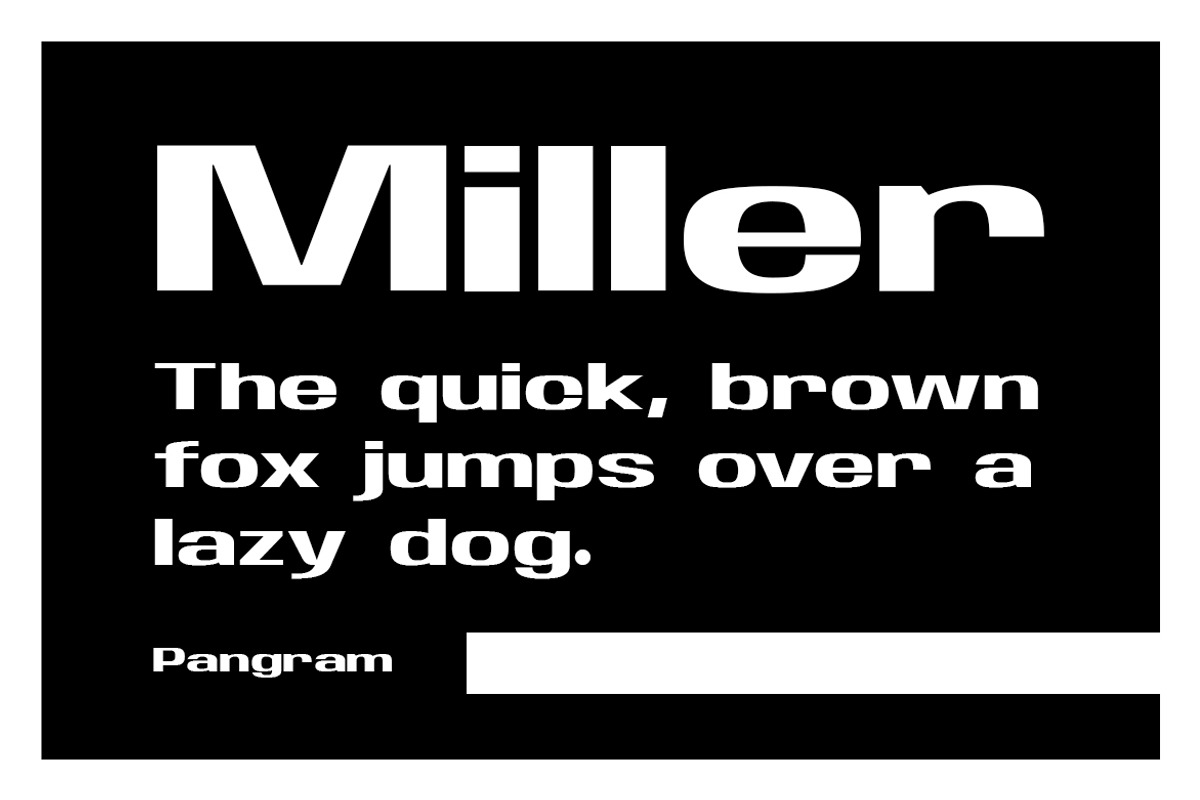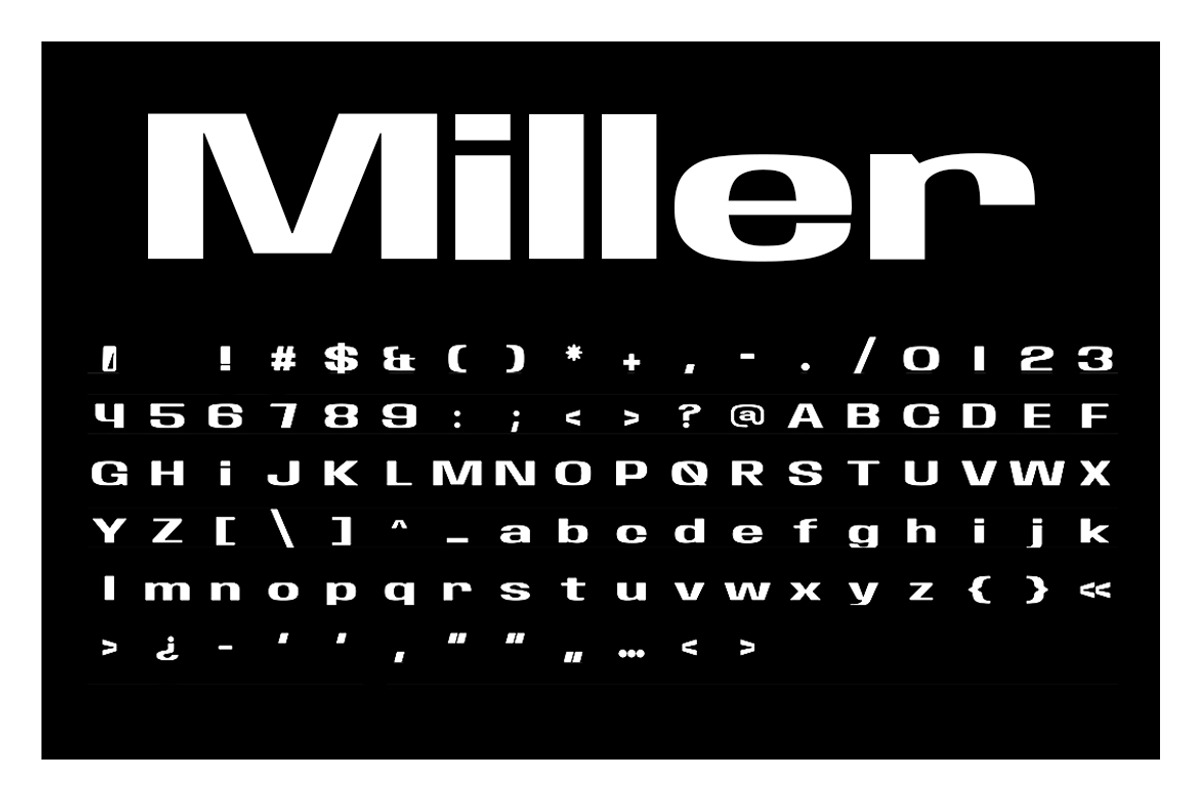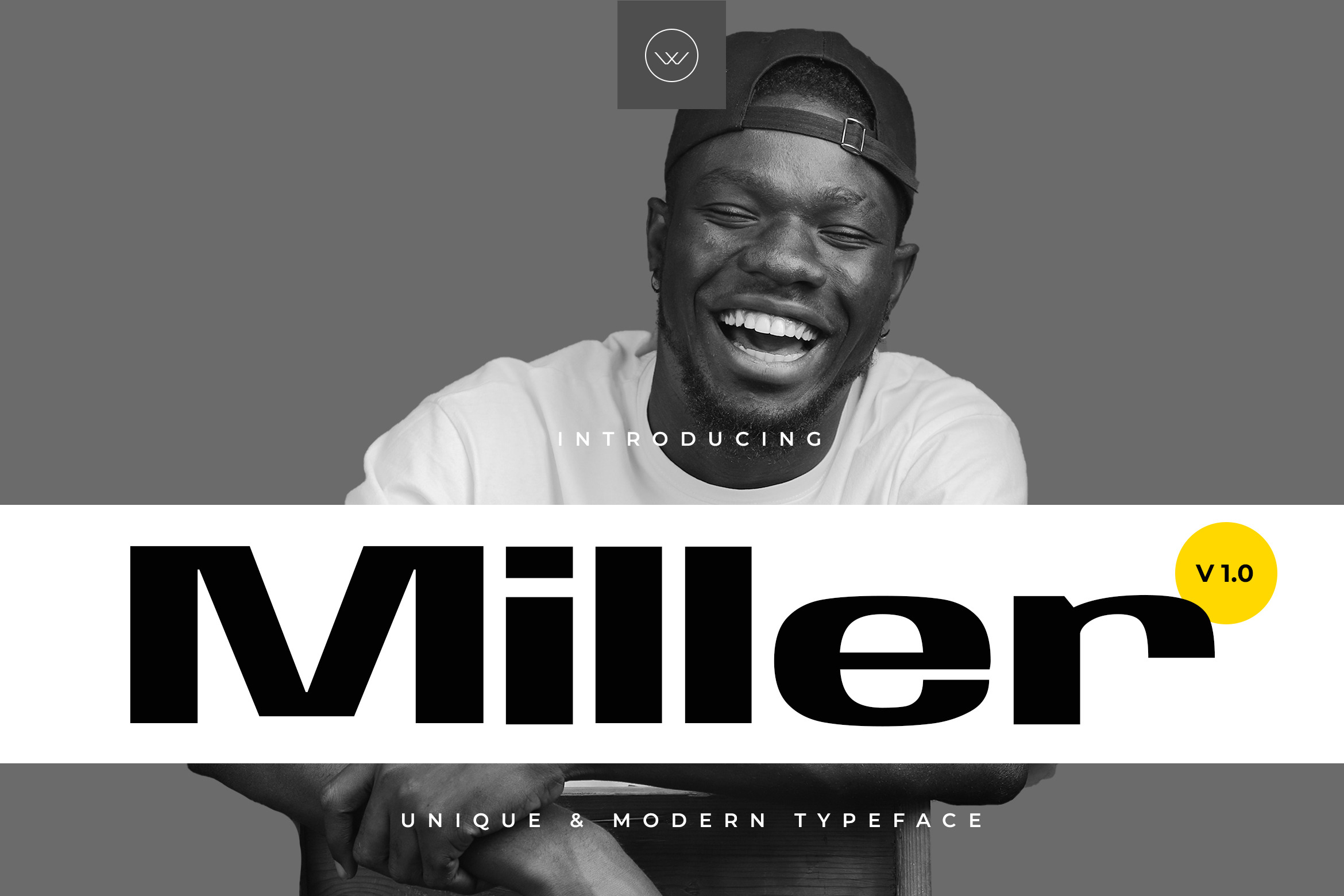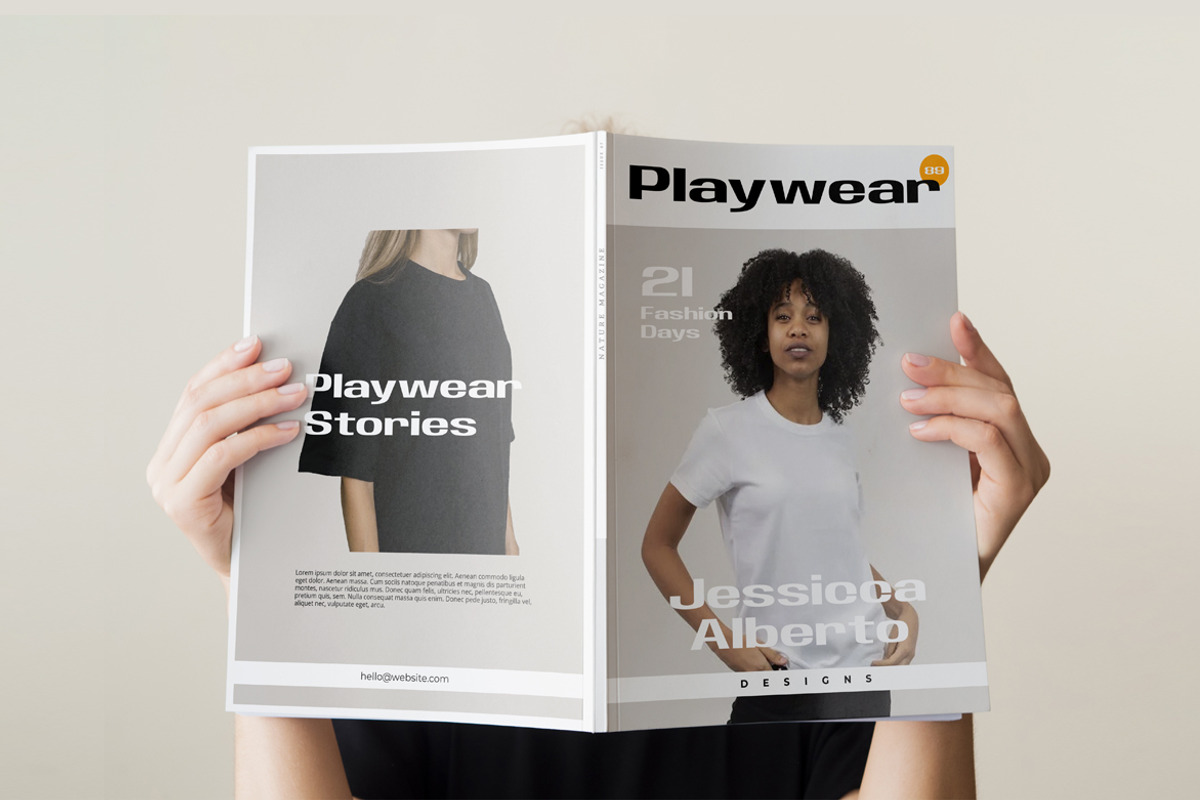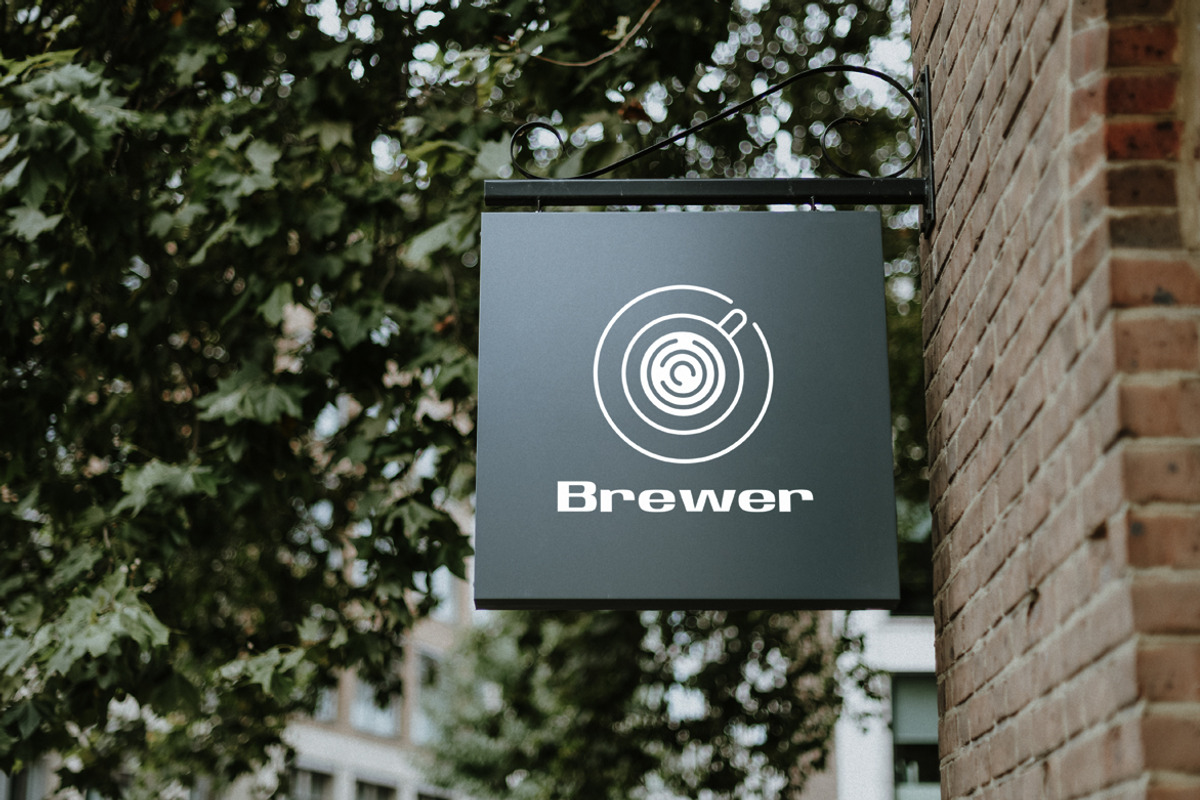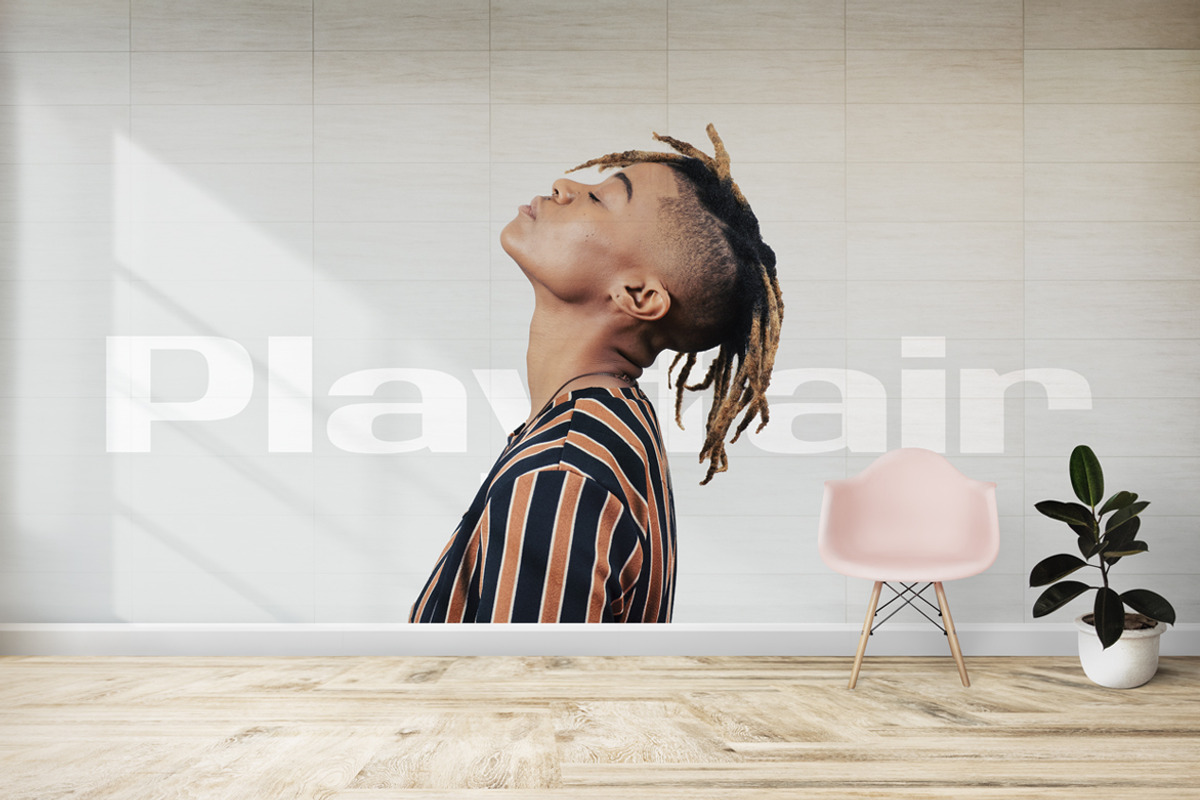
Miller - Modern Typeface
Introducing Miller, the versatile multipurpose font that elevates your creative and fashion projects. With both uppercase and lowercase characters, along with punctuations, it offers endless possibilities. Its thick stems add a touch of allure and beauty, making your designs truly captivating. Whether you're crafting logos, branding materials, or stylish graphics, Miller is the perfect choice to bring your vision to life. Unleash your creativity and let Miller make a bold statement in your next project.
- Uppercase and lowercase letters